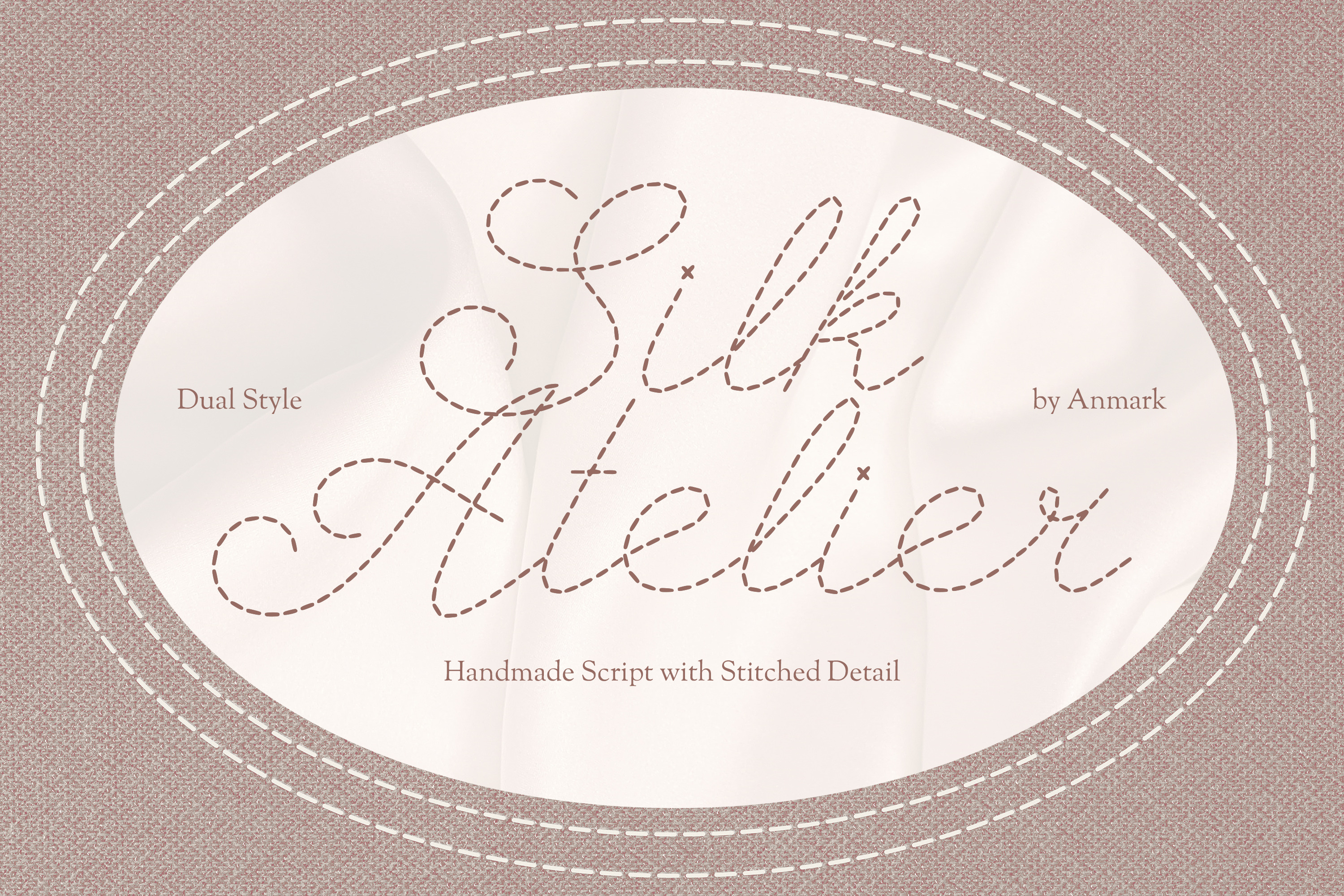
Silk Atelier Stitched Script Font
Silk Atelier is an elegant dual-style calligraphy font inspired by the softness, fluidity, and refined beauty of silk thread. Its graceful letterforms capture a sense of calm movement and handcrafted precision, making it perfect for designs that feel both delicate and sophisticated.
The font includes two distinctive styles that complement each other beautifully. Regular features smooth, continuous strokes with a soft and serene character, ideal for clean, polished typography. Stitched transforms the same flowing forms into a decorative sewn-line effect, resembling delicate tailoring stitches for added texture, charm, and artisanal detail. Together, they offer versatility, from minimal elegance to expressive handcrafted style.
Silk Atelier is designed for creative projects that call for refinement and personality. It works beautifully for logos, monograms, wedding stationery, invitations, branding, packaging, social media content, fashion editorials, beauty products, and handmade or artisan-inspired designs. Whether you want a smooth modern look or a decorative stitched accent, Silk Atelier allows you to create cohesive and visually distinctive compositions.
Elegant, expressive, and thoughtfully crafted, Silk Atelier brings the art of thread and line into timeless.